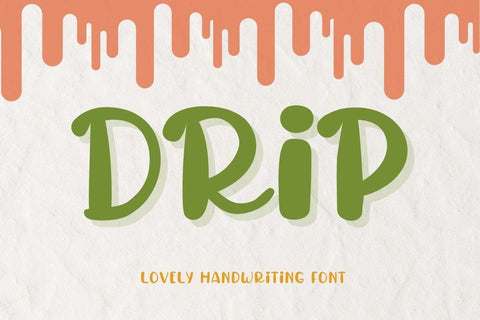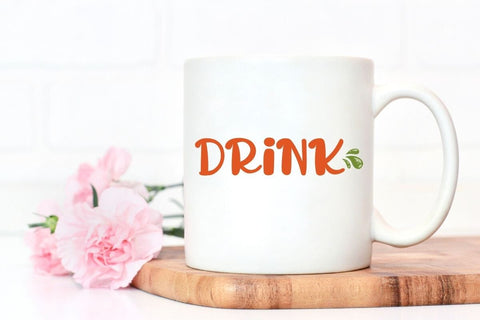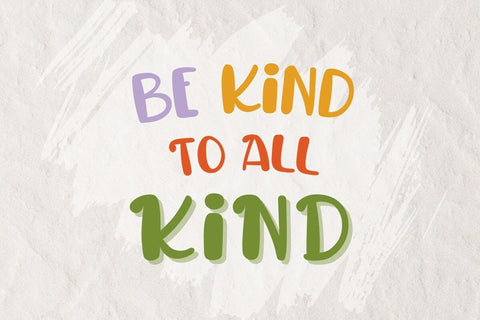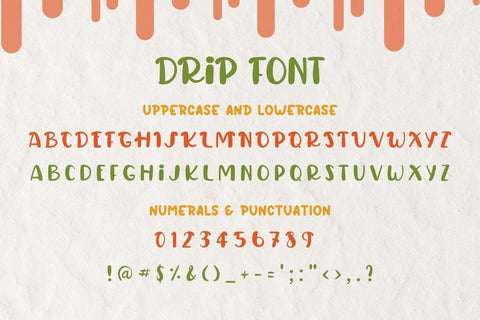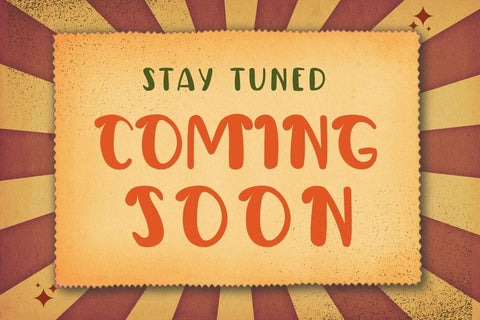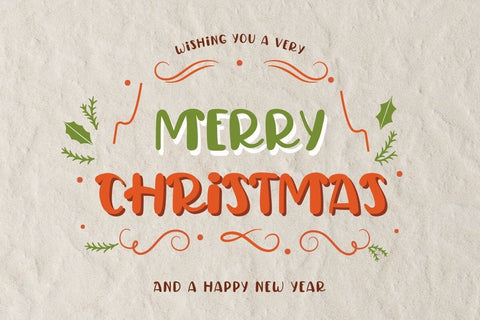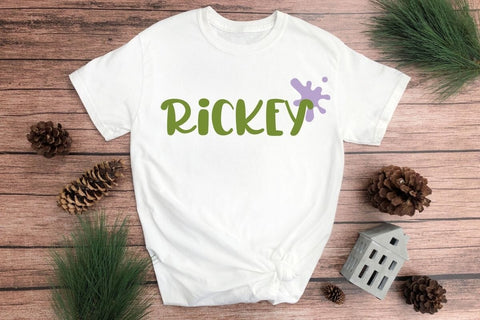
Drip - Display Font
Drip is a cute display font. You enjoy and have fun with your designs. Perfect for creating a wide variety of new designs to match products such as banners, content, mugs, cards, shirts, stationery, social media posts, and more!